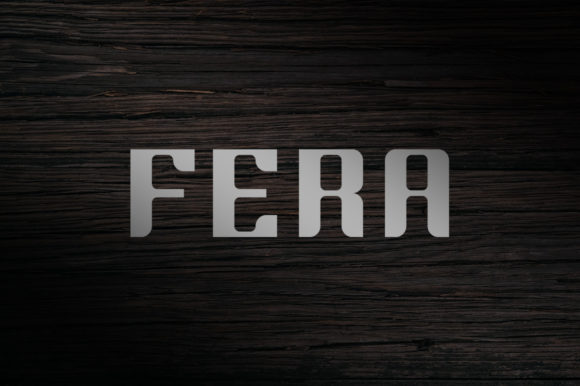
Unleash the power of minimalism with Fera Font, a display font family tailor-made for the modern creative. This masterpiece, brought to life by the artistic visionaries at Thefera Font, is an ode to simplicity and elegance, embodying the essence of "less is more."
With its clean lines, geometric shapes, and understated charm, Fera Font transforms your designs into captivating masterpieces. Each letterform is meticulously crafted to exude a sense of sophistication and allure, ensuring your creations stand out from the mundane.
Indulge in the versatility of Fera Font, a chameleon that seamlessly adapts to a myriad of design landscapes. From food menus tantalizing the taste buds to posters and flyers that capture attention with their bold simplicity, Fera Font is the ultimate choice for those seeking an impact that lingers.
Embrace the endless possibilities of Fera Font, a font family that knows no bounds. Whether you're a seasoned designer or just starting your creative journey, Fera Font empowers you to make a statement. Let your imagination run wild, and experience the joy of creating designs that captivate and inspire.
Fera Font, a font family that speaks volumes through its simplicity. Its minimalist aesthetic invites you to explore a world where clarity and elegance reign supreme.